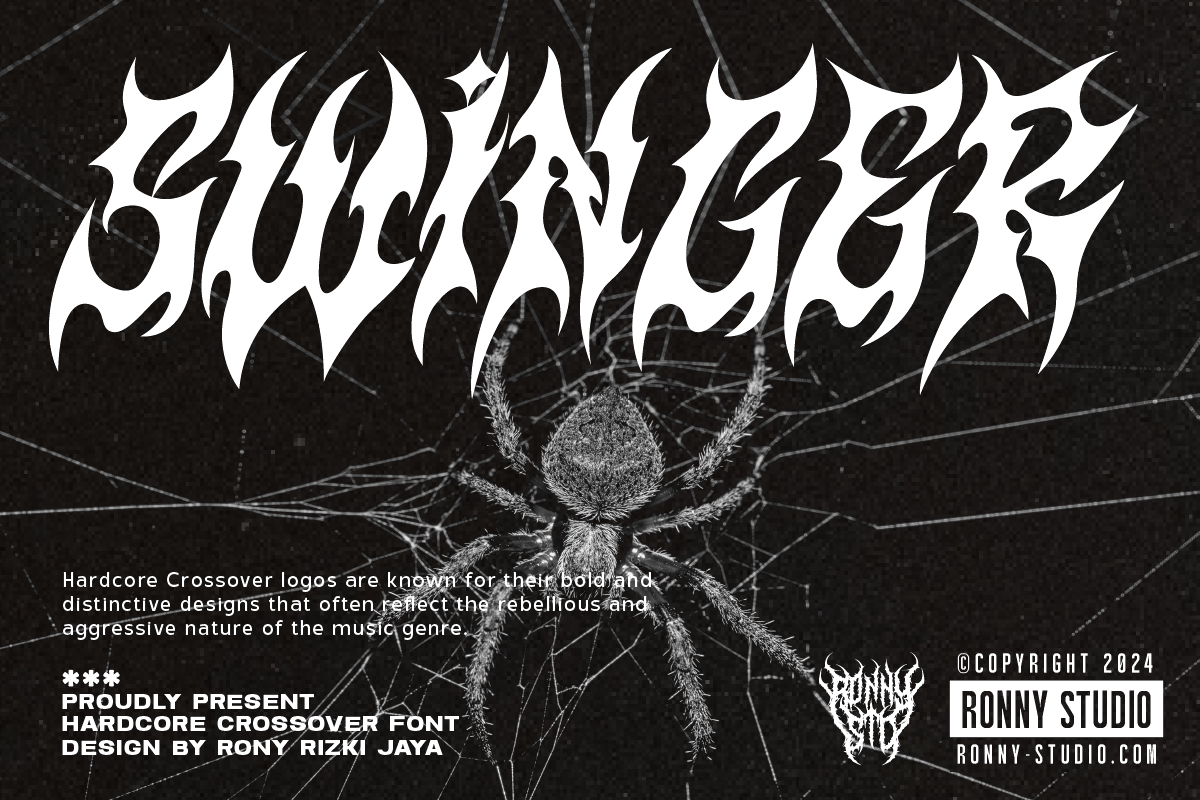
Swinger Hardcore Crossover Font Free Download
Swinger Hardcore Crossover Font Free Download is a bold, edgy typeface designed to capture the spirit of street culture and rebellion. With its sharp, rugged edges and dynamic letterforms, this font is perfect for creating striking logos, posters, album covers, skate brand graphics, and any project that needs a raw, energetic feel. Its aggressive, rebellious design makes it ideal for high-impact, attention-grabbing designs.
Using the Swinger Hardcore Crossover Font Free Download adds an intense, in-your-face vibe to your typography. Whether you're working on a music festival poster, designing a brand for an alternative lifestyle, or crafting street-inspired content, this font brings a bold and unapologetic attitude to your designs.